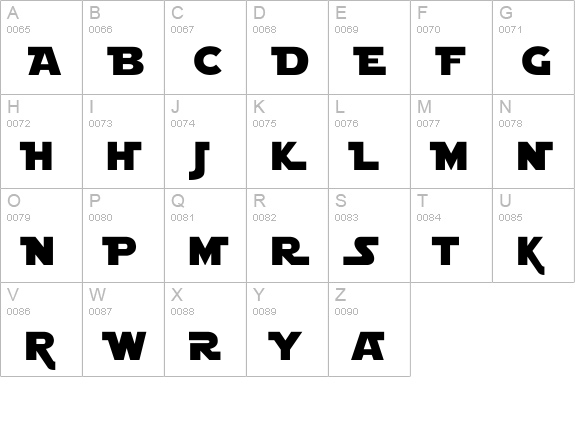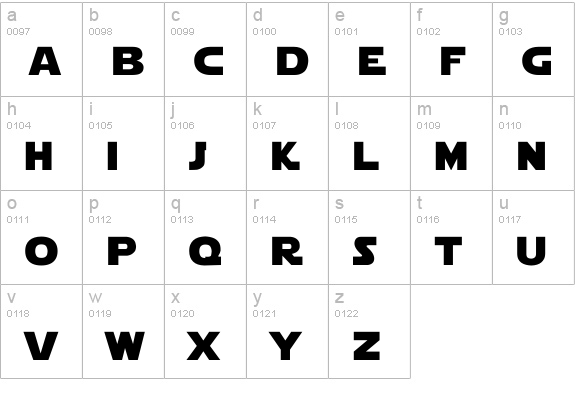
Star Jedi is a captivating and iconic font that transports you to a galaxy far, far away. Inspired by the legendary Star Wars franchise, this font captures the essence of adventure, heroism, and the epic battles fought between the forces of good and evil. Its bold and futuristic design embodies the spirit of the Jedi knights and the power of the Force. What makes Star Jedi even more incredible is that it is freely available to download at FontsMarket.com. This means that you can bring the Star Wars universe right to your fingertips without any cost. Whether you're a die-hard Star Wars fan, a graphic designer looking for a unique font, or simply someone who appreciates the beauty of typography, Star Jedi is the perfect choice. With its distinctive letterforms and attention to detail, this font is ideal for creating eye-catching headlines, movie posters, book covers, or any design project that requires a touch of cosmic elegance. The versatility of Star Jedi allows it to be used in both digital and print media, ensuring that your creations will stand out in any medium. Embrace the power of Star Jedi and let your imagination soar to new heights. Download this remarkable font from FontsMarket.com today and embark on an extraordinary journey through the Star Wars universe. May the Force be with you.